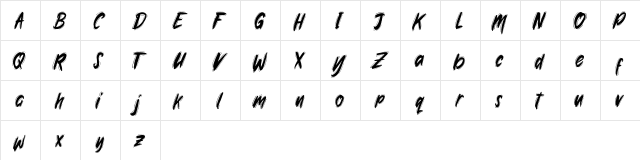
Rawkin pickles demo Regular
| Foundry | LetterStock |
| Designer | LetterStock |
Design Context for Rawkin pickles demo Typeface
Rawkin pickles demo is a composed and adaptable typeface that performs quietly and consistently across a wide range of design contexts.